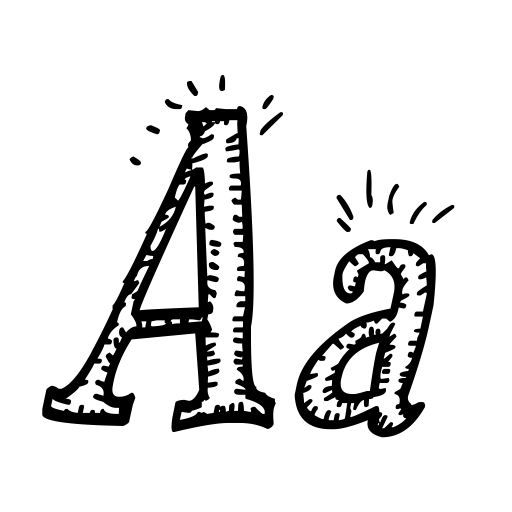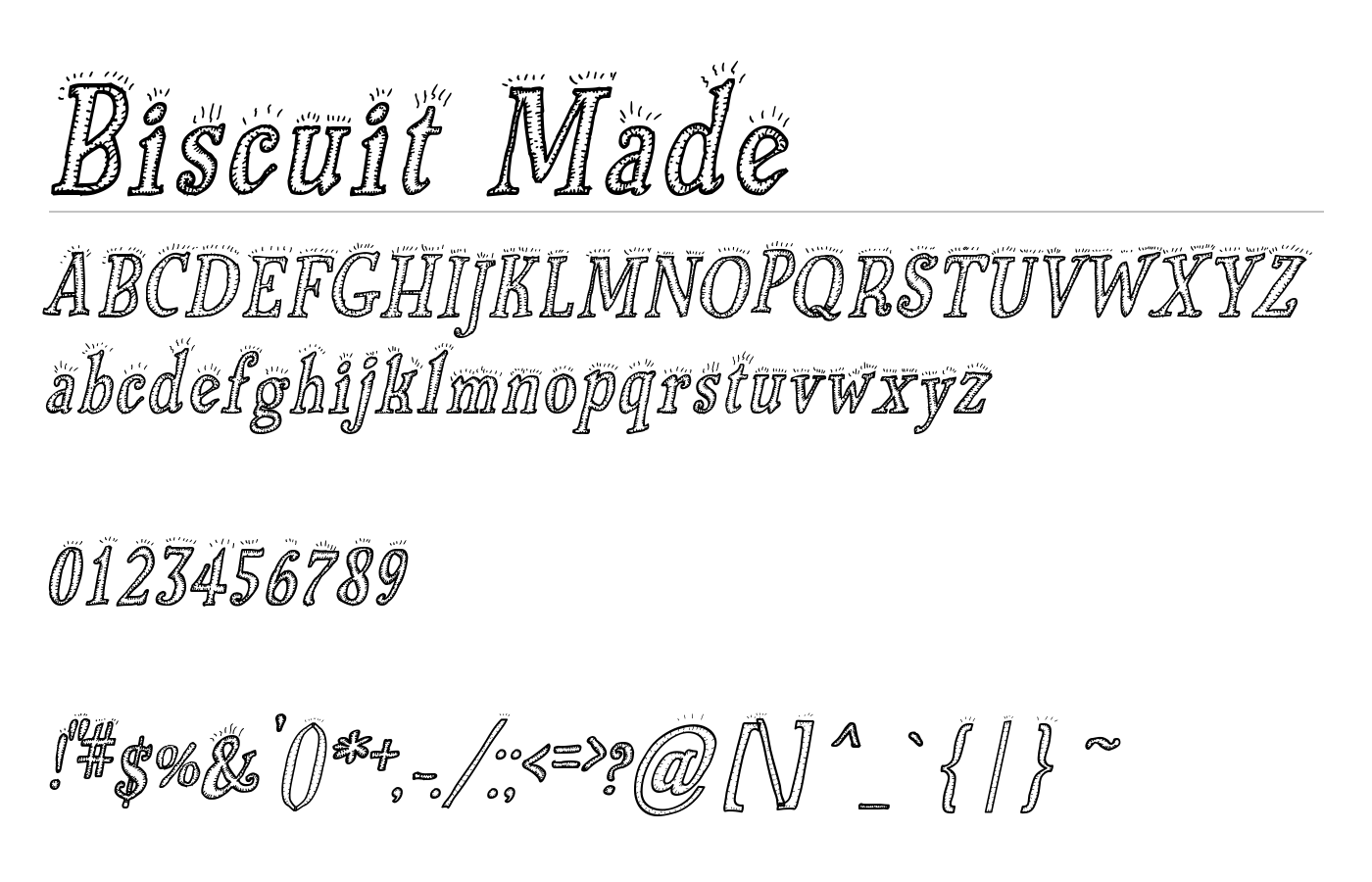
Biscuit Made is a playful serif font with a hand-drawn, sketch-like texture giving it a charming, whimsical feel. Its slightly irregular lines and decorative shading make it ideal for casual, creative branding or fun editorial projects that want to convey warmth and personality. This font shines in headlines, logos, and packaging where a friendly, approachable look is desired.
Biscuit Made Font
About Biscuit Made Font